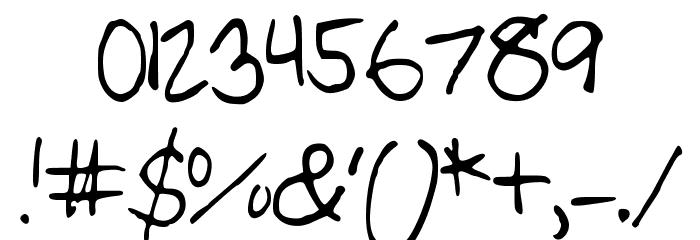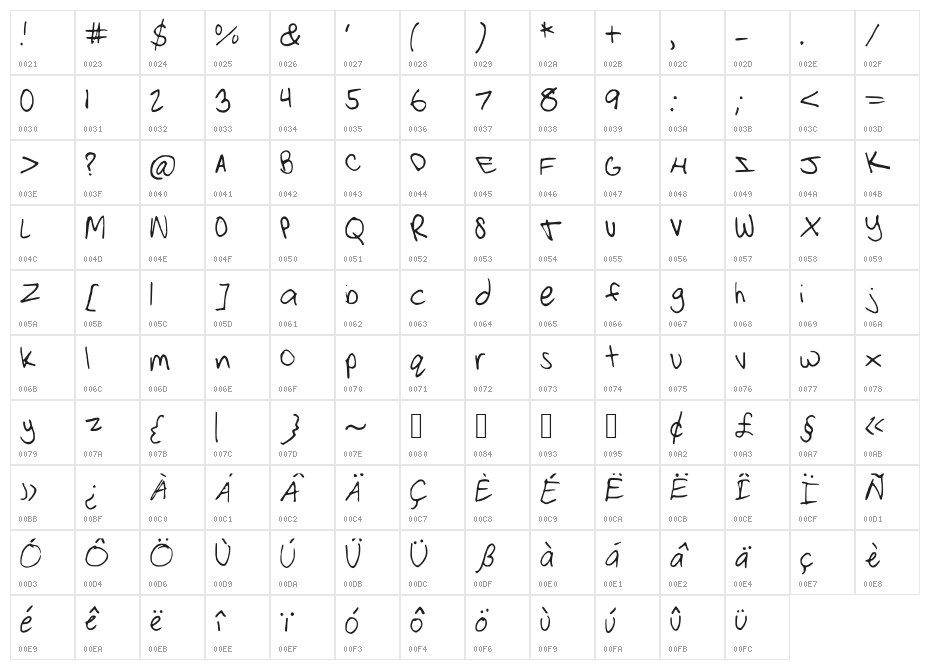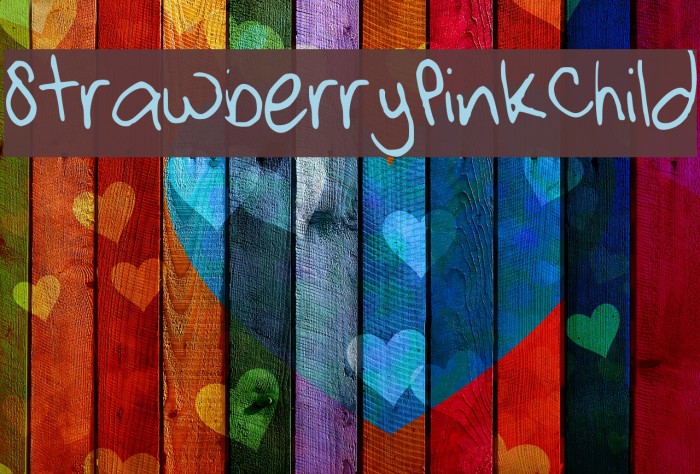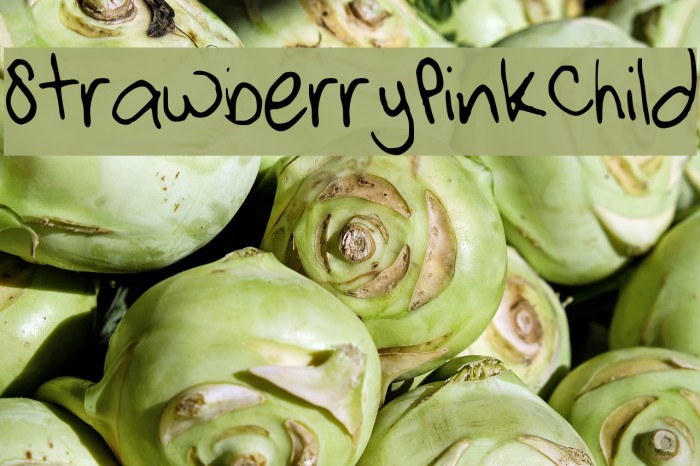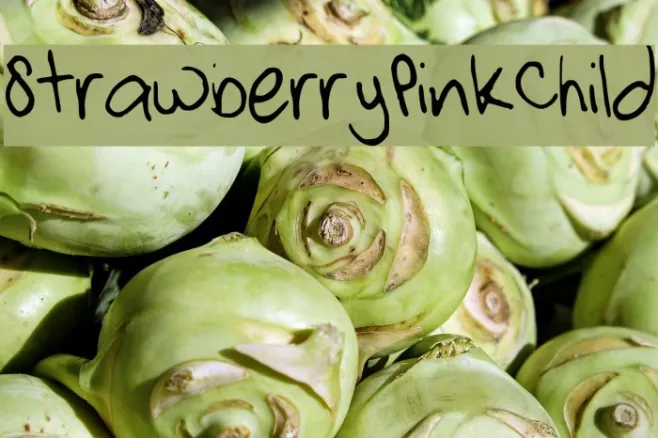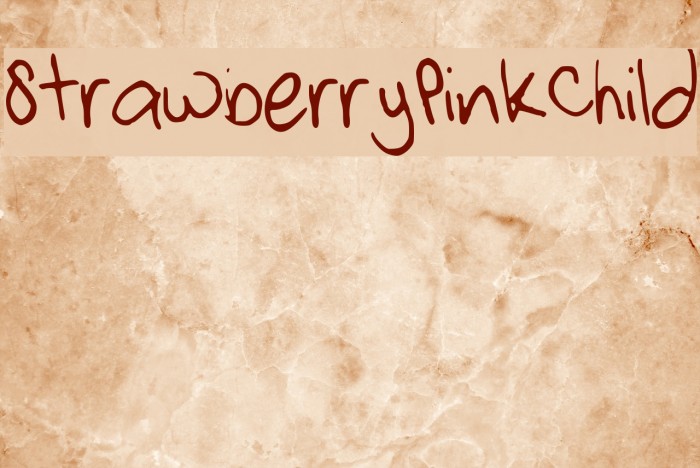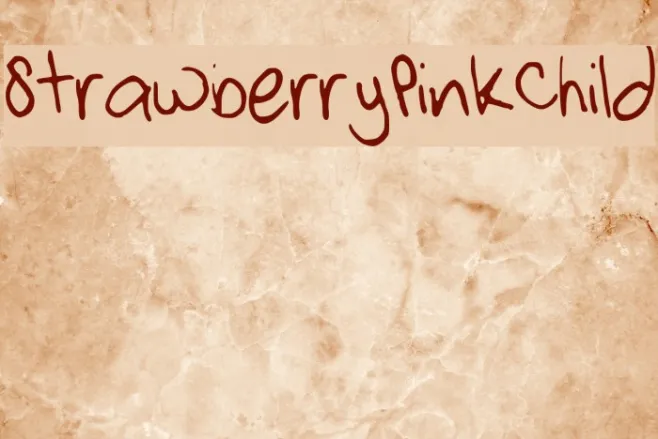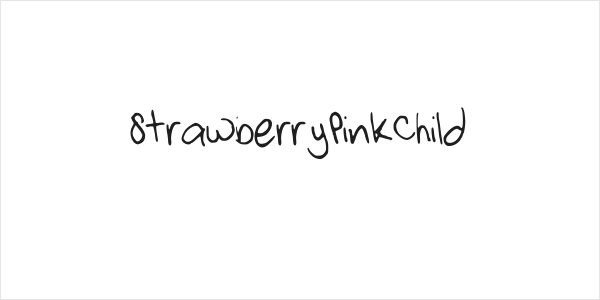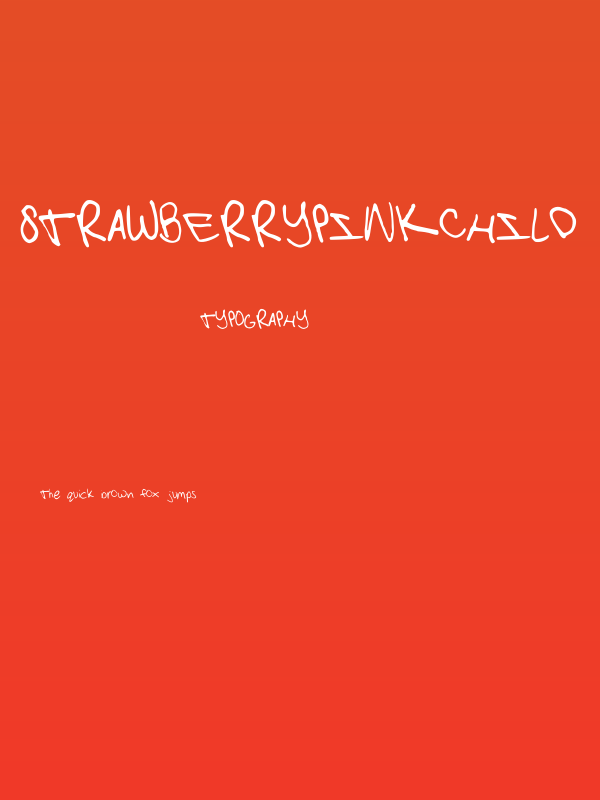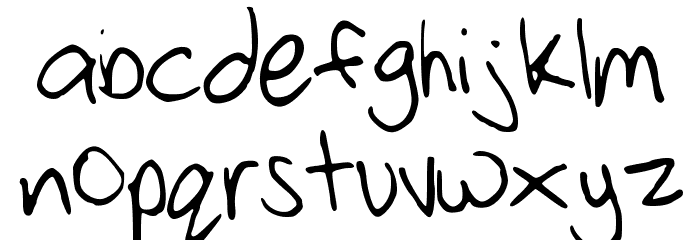
StrawberryPinkChild Font
StrawberryPinkChild Description
This playful and whimsical handwritten font exudes a sense of youthful energy and creativity. The characters are crafted with a casual, free-flowing style that mimics natural handwriting, making it ideal for projects that require a personal touch. The strokes are uneven and slightly irregular, adding to its charm and authenticity. The font maintains a consistent baseline, while the varying heights and slants of the letters contribute to its dynamic appearance. It is perfect for informal and fun designs, capturing a sense of spontaneity and joy.
| Proposed Projects | Ideal for children's books, greeting cards, playful branding, and DIY projects. |